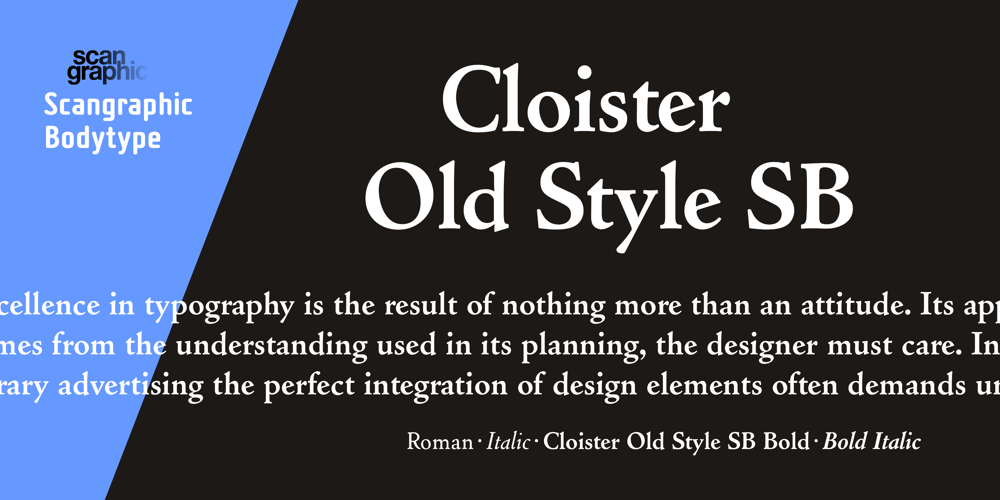
Cloister Old Style SB
Cloister Old Style SB font
Cloister Old Style SB Font Family was designed by Morris Fuller Benton and published by Scangraphic Digital Type Collection. Cloister Old Style SB contains 4 styles and family package options. Since the release of these fonts most typefaces in the Scangraphic Type Collection appear in two versions. One is designed specifically for headline typesetting (SH: Scangraphic Headline Types) and one specifically for text typesetting (SB Scangraphic Bodytypes). The most obvious differentiation can be found in the spacing. That of the Bodytypes is adjusted for readability. That of the Headline Types is decidedly more narrow in order to do justice to the requirements of headline typesetting. The kerning tables, as well, have been individualized for each of these type varieties. In addition to the adjustment of spacing, there are also adjustments in the design. For the Bodytypes, fine spaces were created which prevented the smear effect on acute angles in small typesizes. For a number of Bodytypes, hairlines and serifs were thickened or the whole typeface was adjusted to meet the optical requirements for setting type in small sizes. For the German lower-case diacritical marks, all Headline Types complements contain alternative integrated accents which allow the compact setting of lower-case headlines.